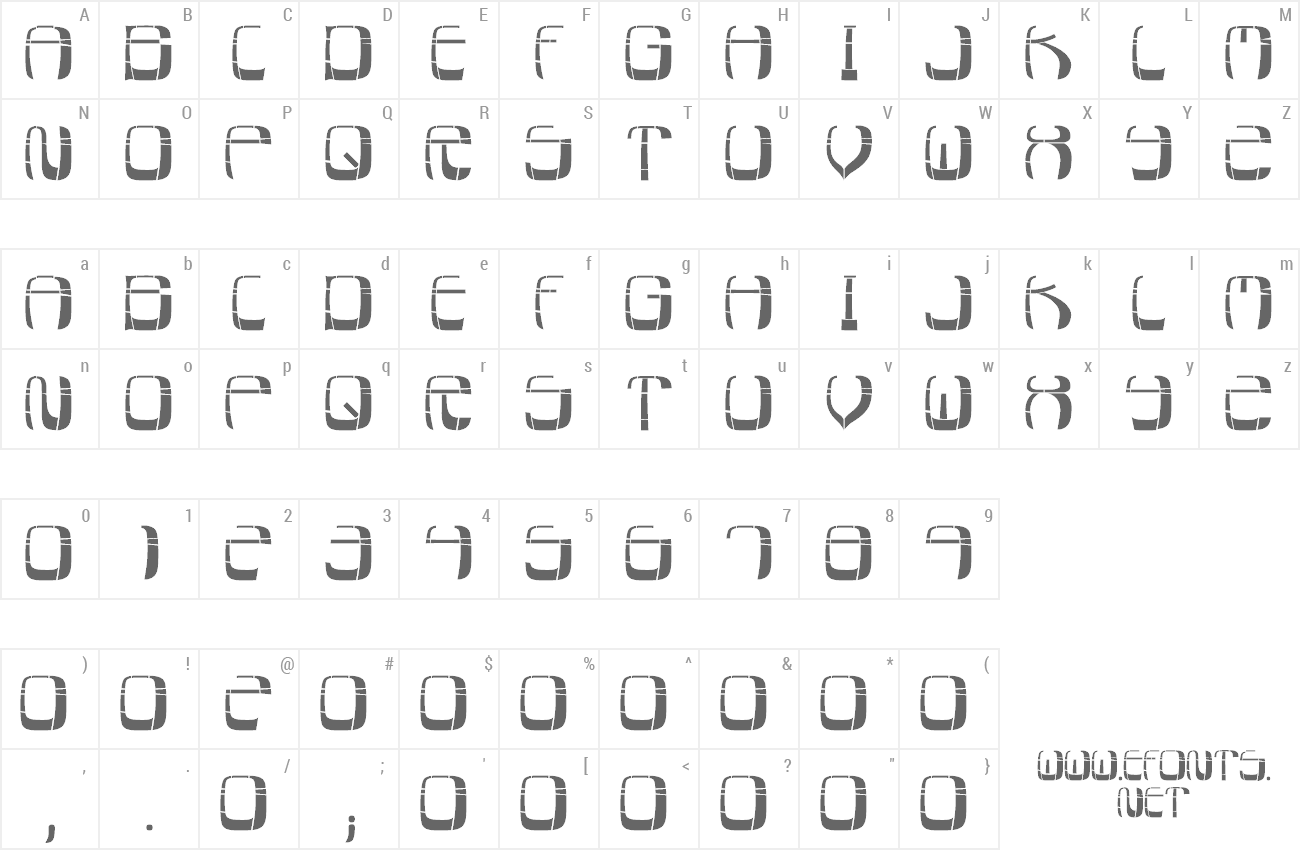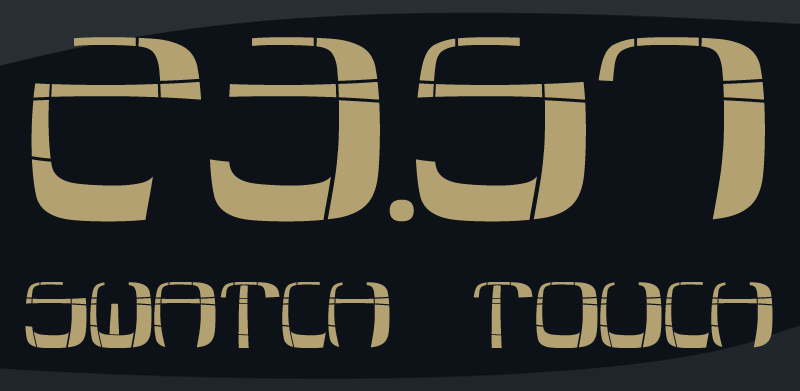
| Font name: | Swatch Touch |
| Author: | Sven Sonnenschein |
| Note by Sven Sonnenschein | |
| Inspired by digits of the watch "Swatch Touch". Created with Corel Draw X5 |